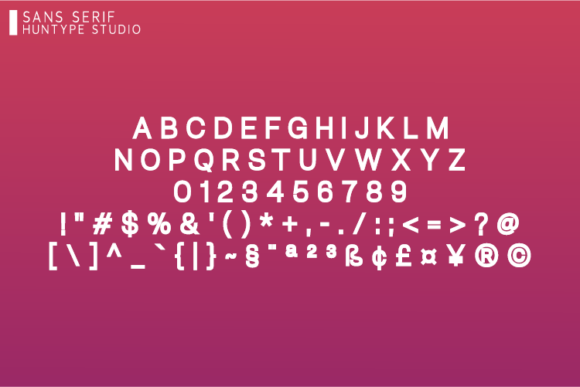
Unlock the Power of Funglowrn Font: Elevate Your Designs with a Touch of Sophistication
Do you remember that moment when you stumbled upon the perfect font for your project? The excitement, the relief, and the confidence it gives you to take your design to the next level? That’s what I’m about to share with you – a game-changing font that will revolutionize your creative process.
Meet the Funglowrn Font, a masterfully designed sans serif font that’s as bold as it is sophisticated. With its chunky and extended characters, this font is a must-have for designers looking to add a touch of elegance to their logos, branding, and packaging design. The Funglowrn Font is more than just a font – it’s a tool that will elevate your designs and leave a lasting impression on your audience.
Whether you’re a seasoned designer or just starting out, the Funglowrn Font is an essential addition to your toolkit. Its versatility and sophistication make it the perfect choice for any project that requires a touch of sophistication and creativity.
Funglowrn Font Key Features
- Unique Characteristics: The font features a unique blend of organic and geometric shapes, creating a distinctive and eye-catching visual effect.
Funglowrn Font Review
Overall, I’m quite impressed with the Funglowrn Font. It’s got a unique charm that sets it apart from other fonts. ✨ The letterforms are carefully crafted to create a sense of whimsy and playfulness, making it perfect for projects that require a touch of personality.
- ✨ Unique letterforms that add character to any design
- ✨ Works well in headings and titles, creating a sense of drama and emphasis
- ✨ Suitable for projects that require a touch of playfulness and whimsy
However, I do have a few concerns that might impact its usability. ⚠️ The font can be quite difficult to read at smaller sizes, and the letter spacing can become tight in longer blocks of text. Additionally, the font’s irregularities might not be suitable for projects that require a more formal tone.
- ⚠️ Difficult to read at smaller sizes due to tight letter spacing
- ⚠️ May not be suitable for projects that require a formal tone
Overall, I think the Funglowrn Font is a great addition to any designer’s toolkit. While it may have some limitations, its unique charm and playfulness make it perfect for projects that require a touch of personality.
Tips for Getting the Most Out of Funglowrn Font
Use the Funglowrn Font for creative and whimsical designs, such as invitations, posters, and social media graphics. Experiment with different font sizes, colors, and styles to create unique and eye-catching designs.
The Funglowrn Font is perfect for:
- Designing invitations and party graphics
- Creating whimsical social media graphics
- Adding a touch of personality to your blog or website